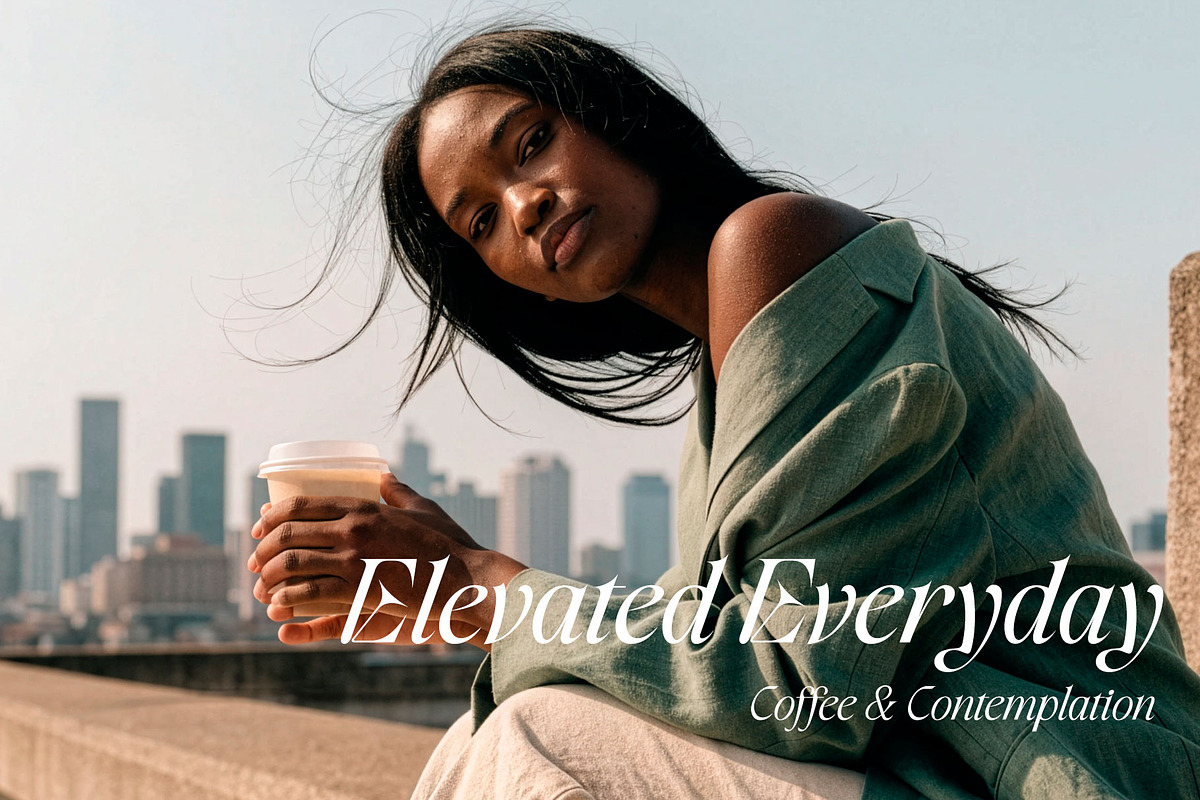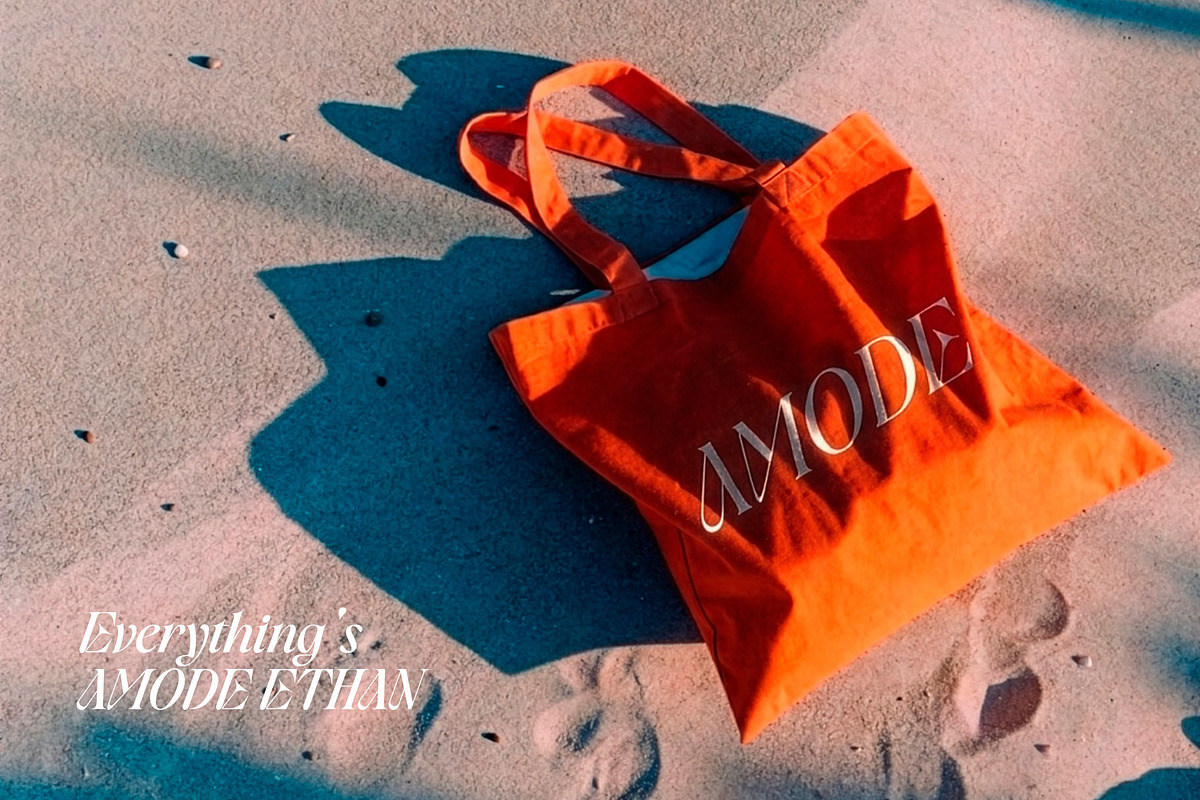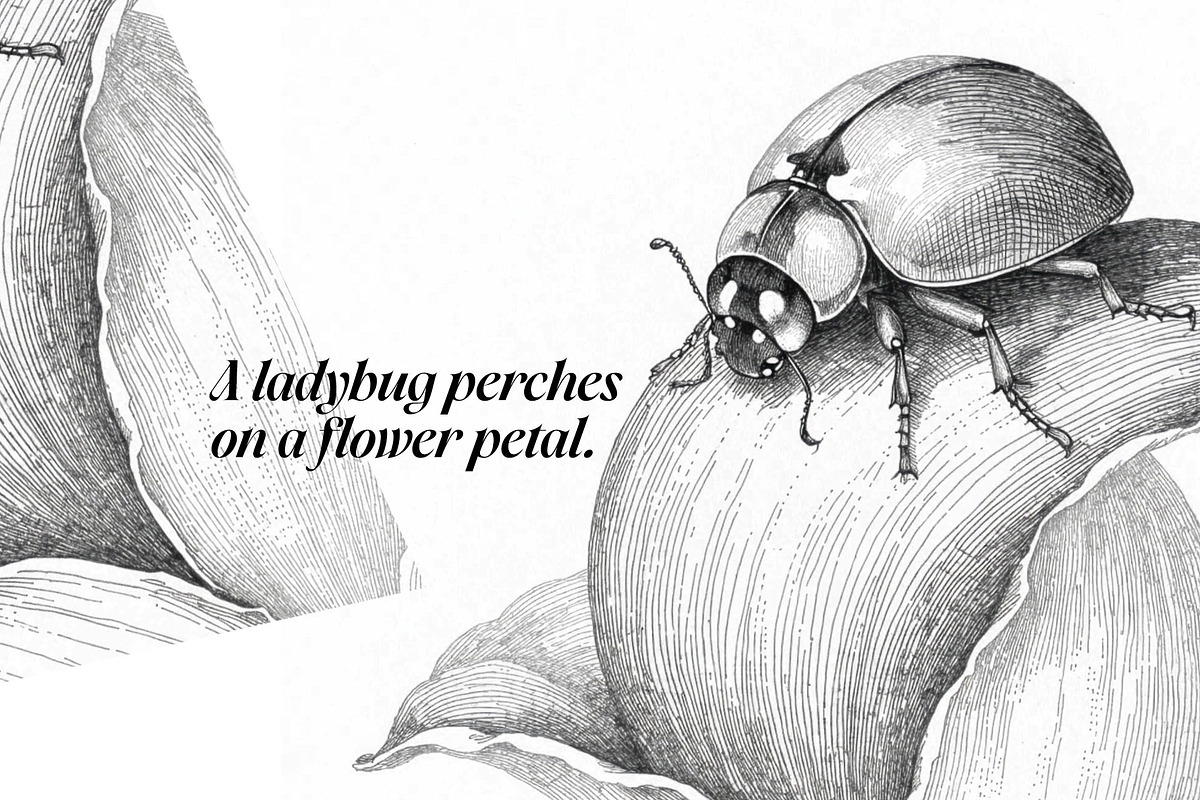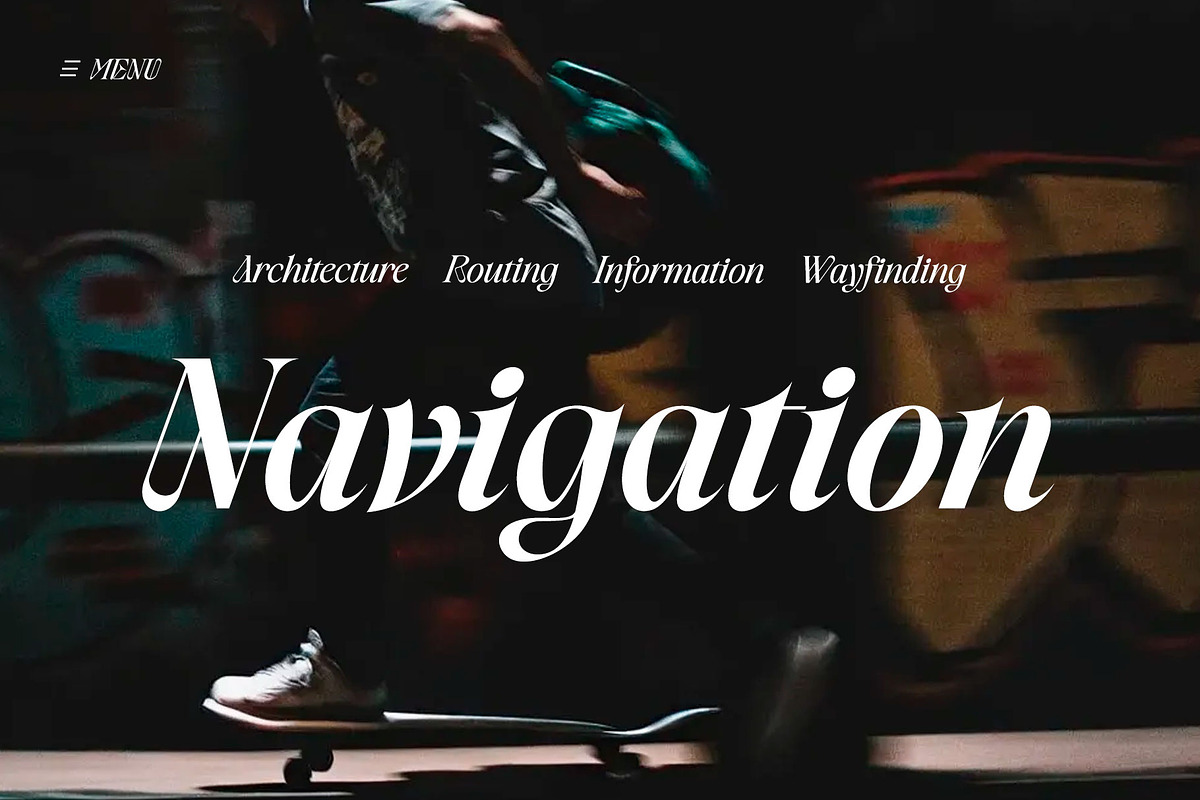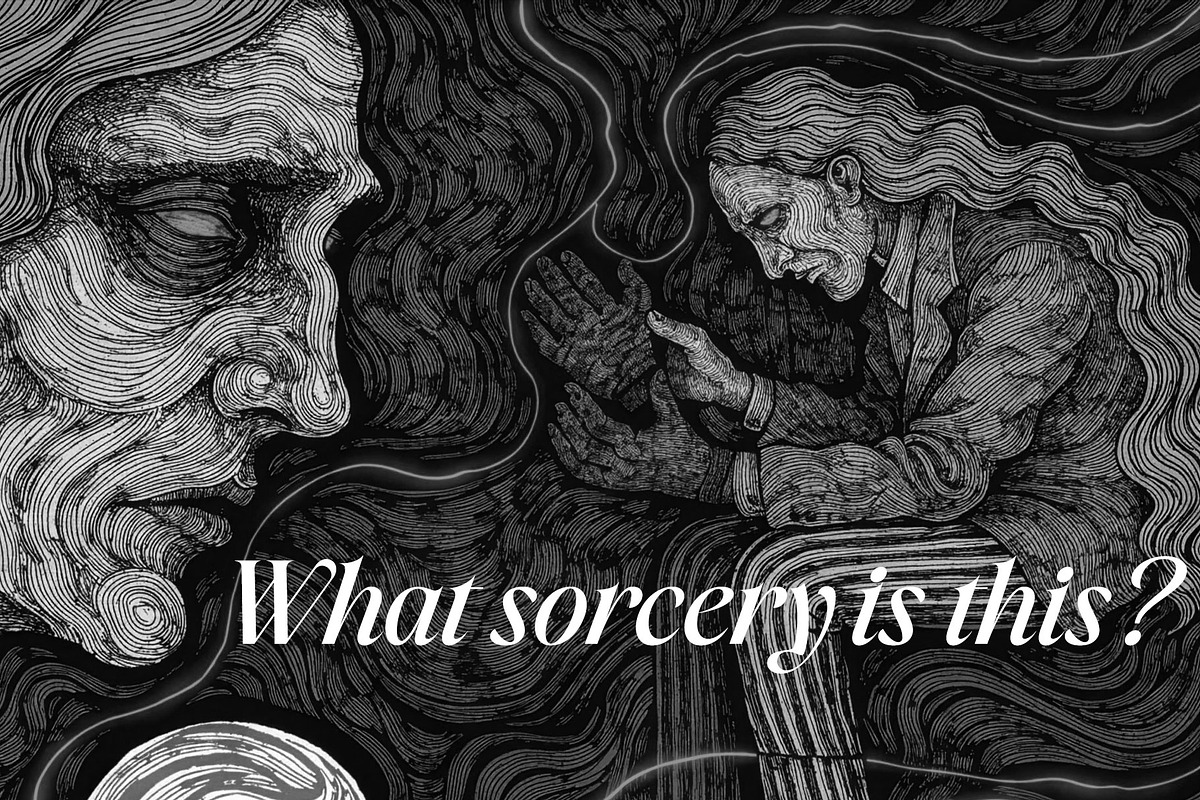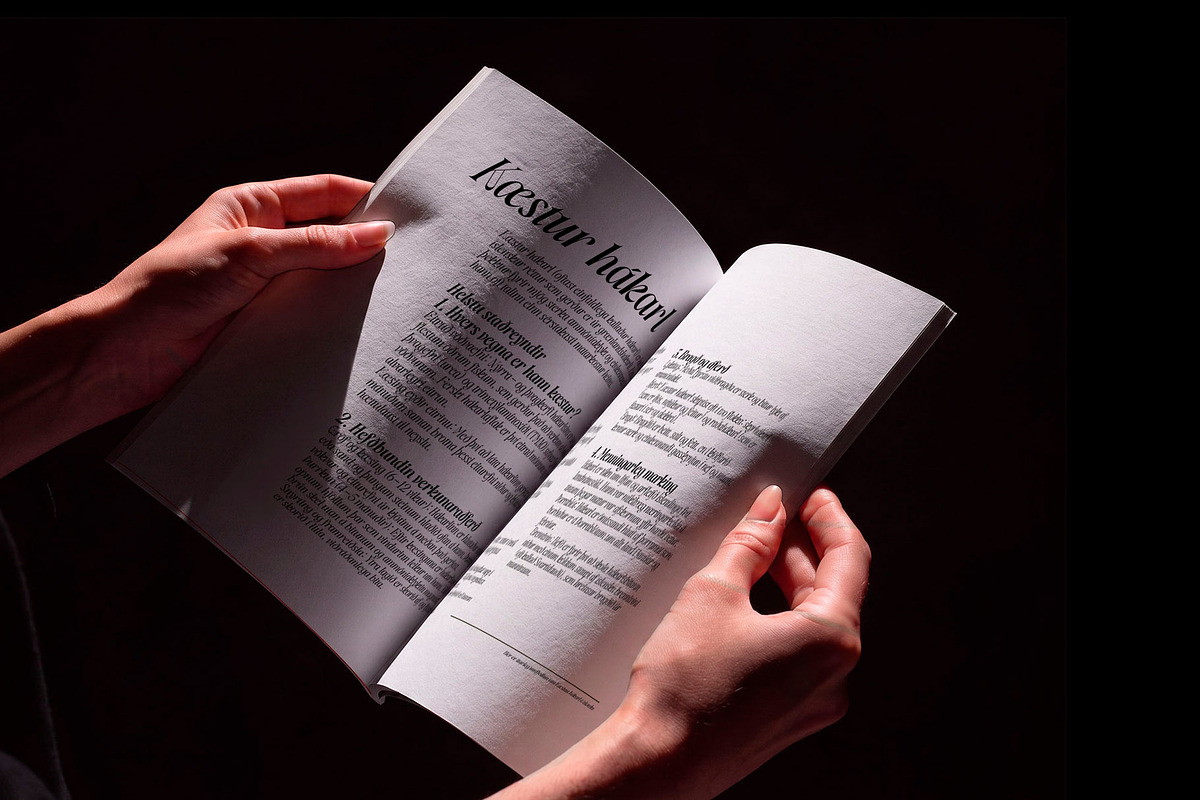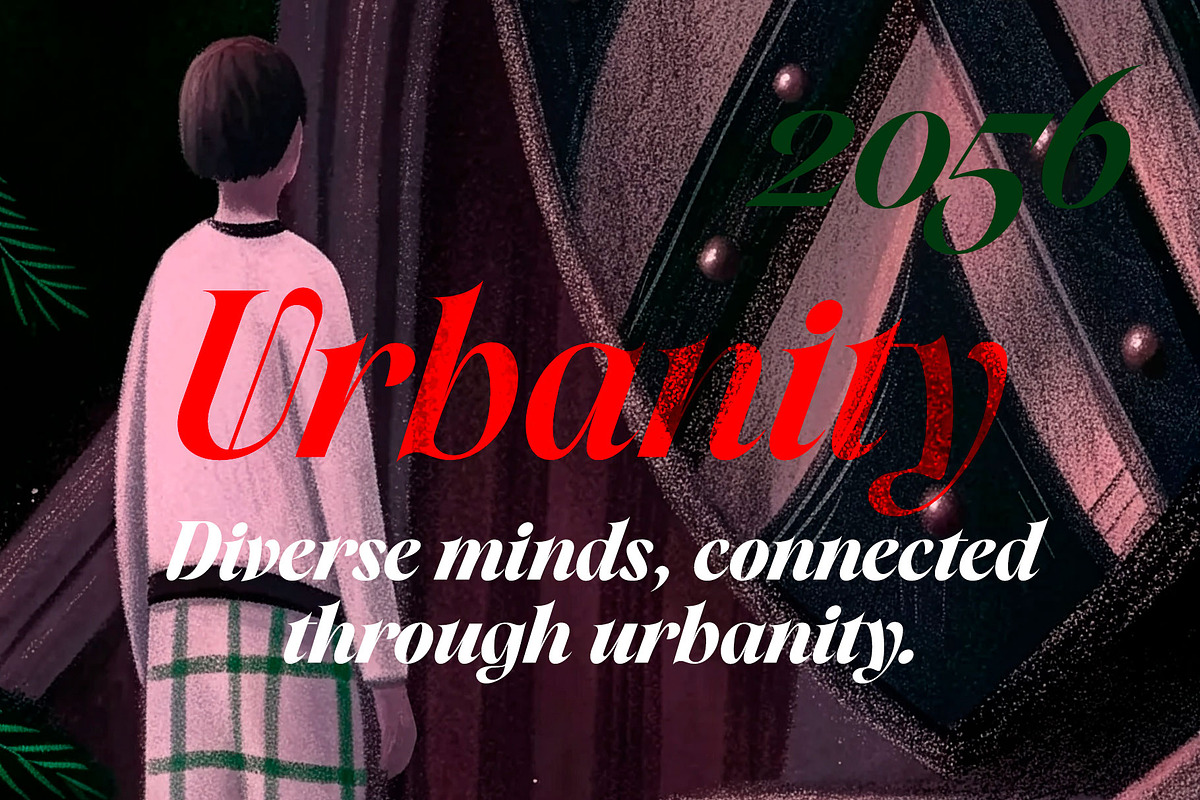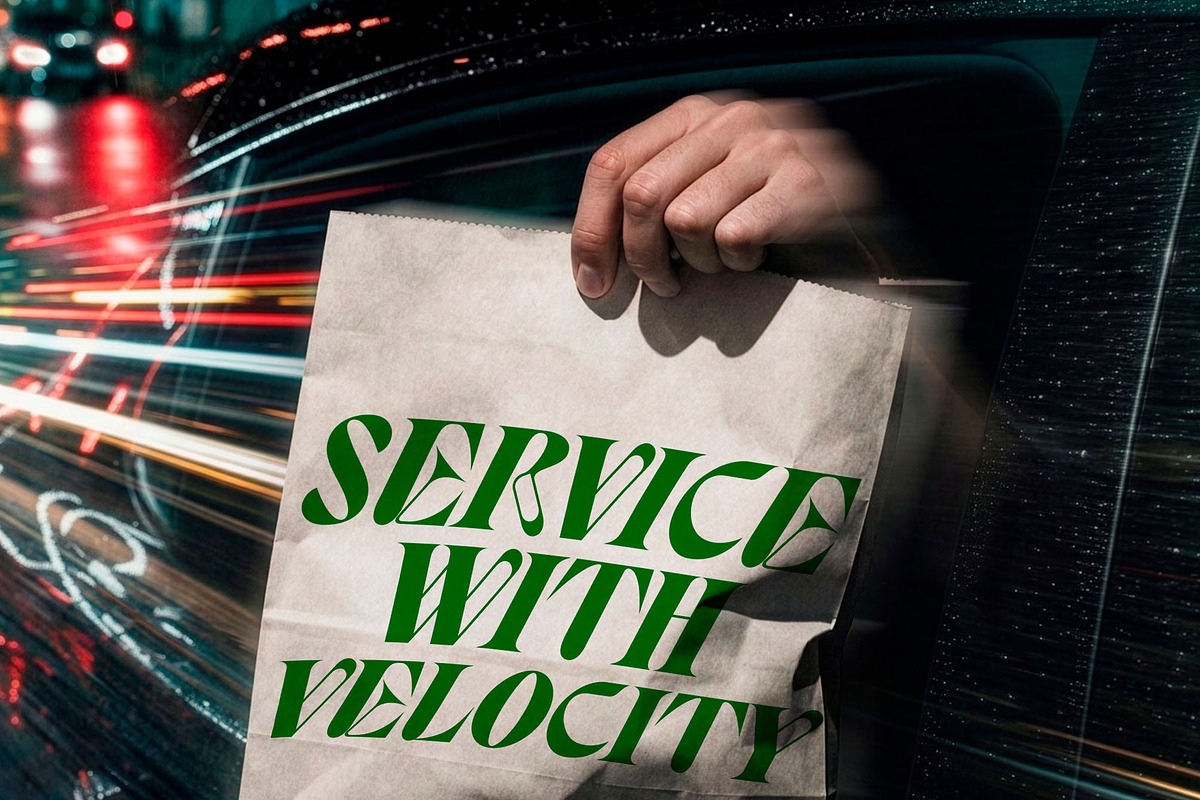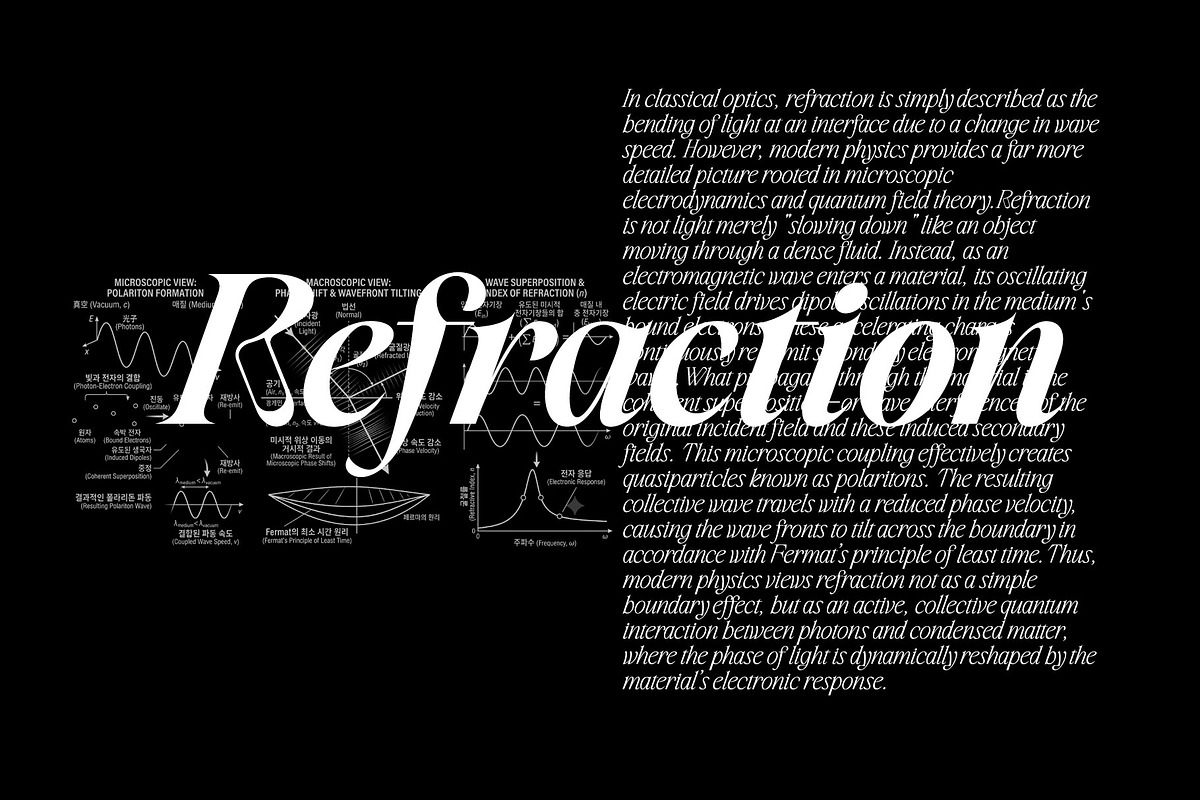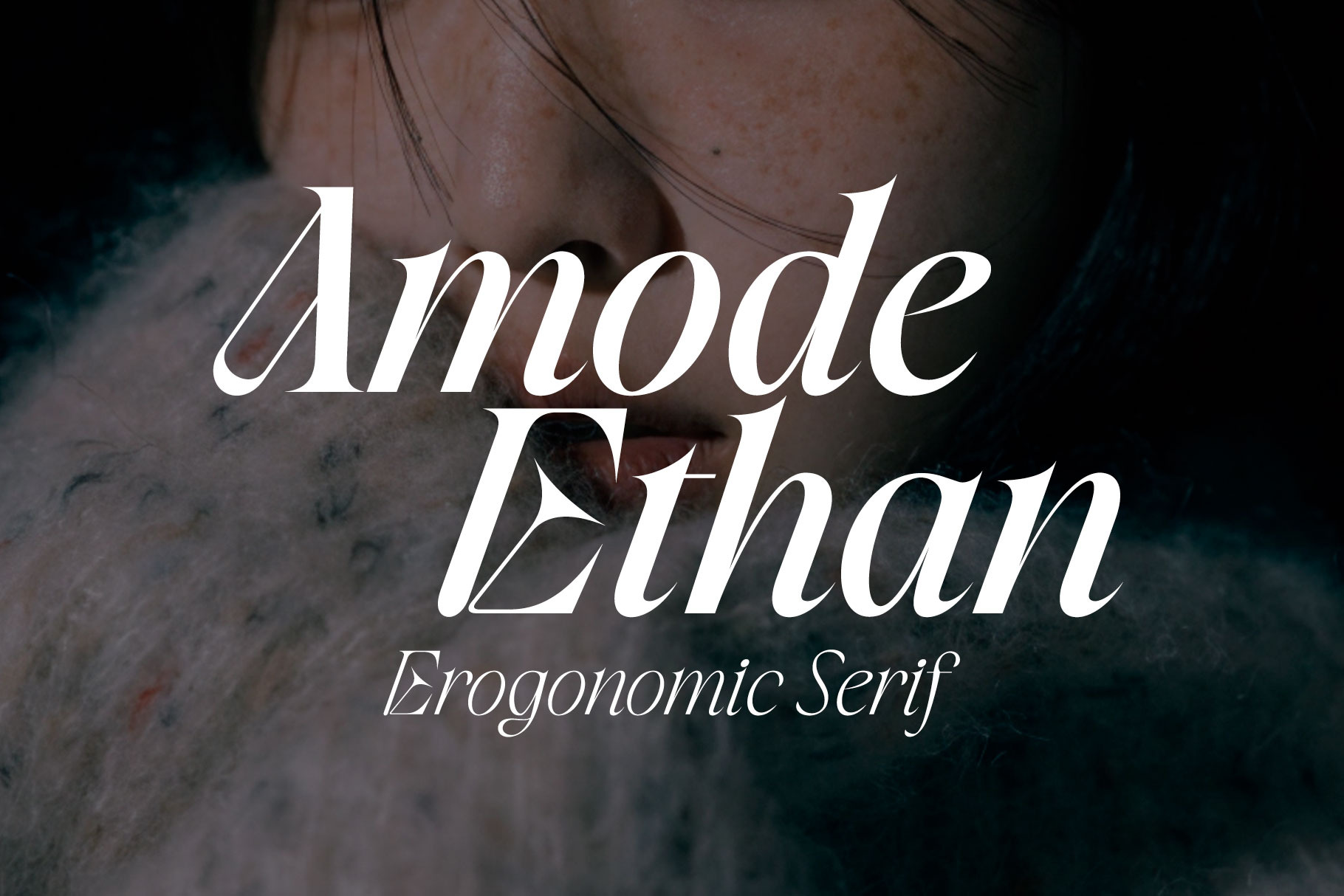
Amode Ethan Serif Font Family
This typeface pairs the sharp precision of high-contrast classical serifs with a dual structural personality: cold, geometric mechanics on one hand, and fluid, tension-filled organic curves on the other.
The typeface focuses on the beauty and dynamism of italics, featuring an intentional 19.5-degree slant, a deliberate rebellion, and a unique layout where these elements coalesce.
1. Visual Mood & Aesthetic Intent
Retains ultra-sharp terminals and paper-cut edges. It delivers a high-fashion, futuristic, and subtly intimidating impression, avoiding any artificial softening or rounded corners.
Blends the cold efficiency of industrial engineering with the ergonomic agility of living anatomy. The visual warmth comes not from softness, but from the dynamic tension of muscle, bone, and sleek mechanical architecture.
Projecting an aggressive yet highly refined tone, it creates an avant-garde visual presence tailored for luxury tech, editorial titles, and high-impact identity design.
2. Anatomical Features
Stems utilize hard-angled junctions and calculated structural breaks that recall machined aluminum chassis, precision-cut facets, or architectural framing.
Rather than remaining static serif, the stems boldly flare, or flex along their length—emulating aerodynamic profiles.
And, Internal counters feature parabolic or distorted curves instead of typical circles, creating a sense of compressed potential energy within each character.
Ultimately, it represents our first unique achievement—a triumph born from contemplating human sensibility alongside a humanoid aesthetic vision.